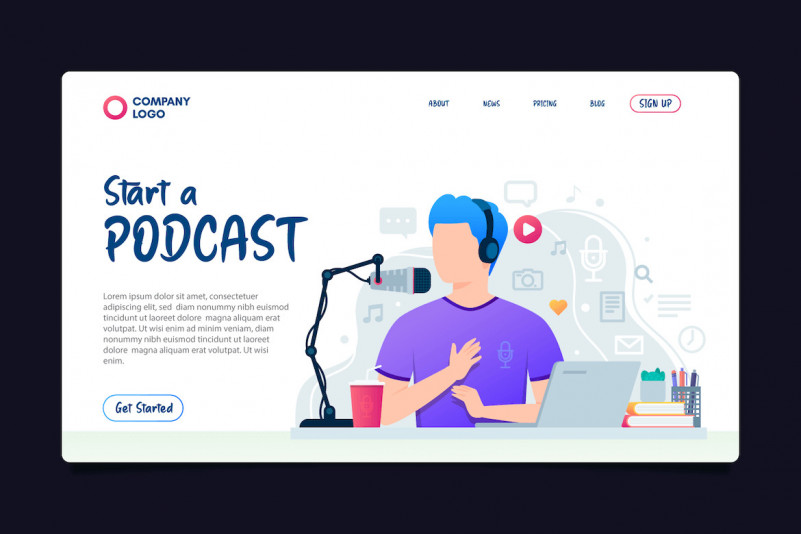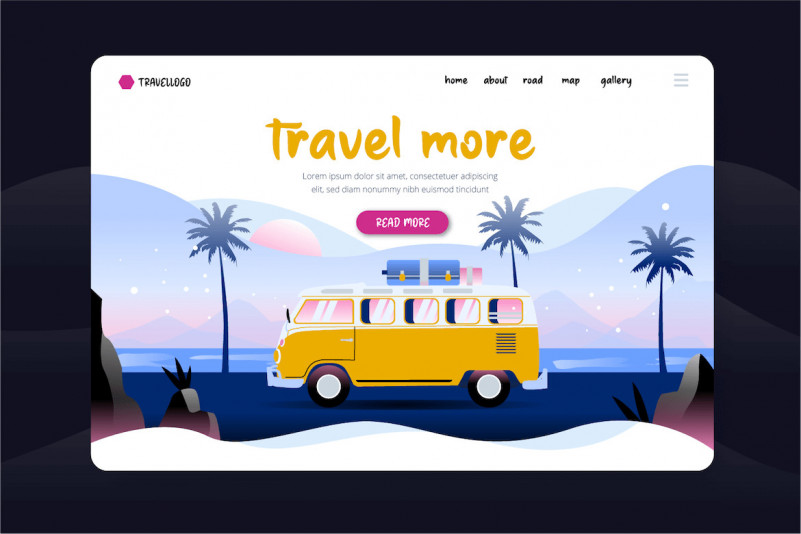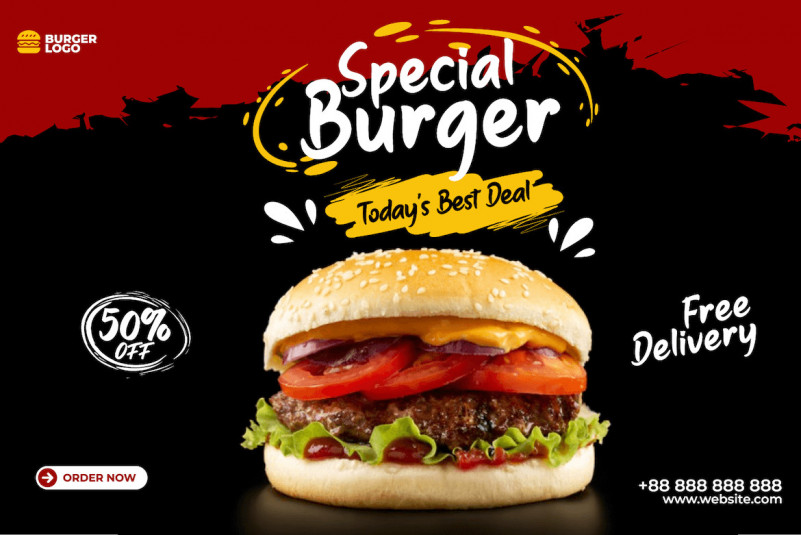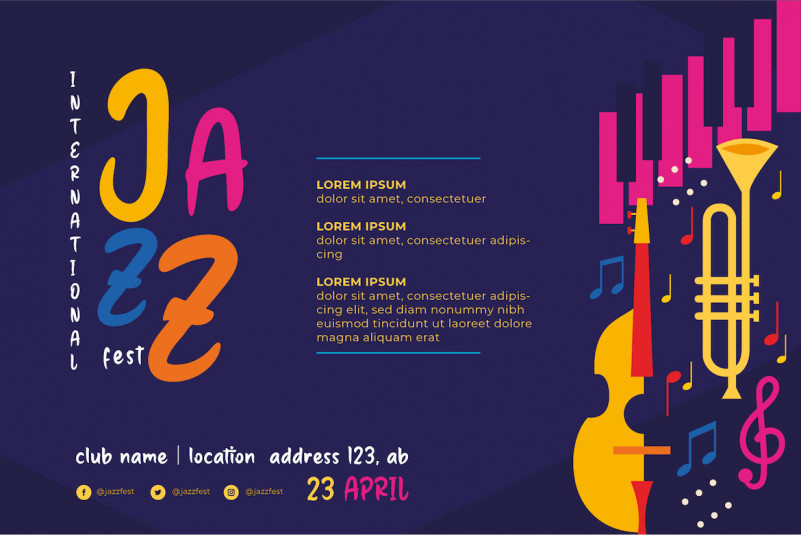
Rational Font
Rational Display Font
This font is designed with a dramatic hand-drawn, to create unique and eye-catching shapes.
Rational Display Font is handwritten. This font has an original and extraordinary design. This font is perfect for strong text with displays for a wide variety of branding, advertisements, posters, banners, packaging, podcasts, outdoor activities, clothing, quotes, drinks, and more.